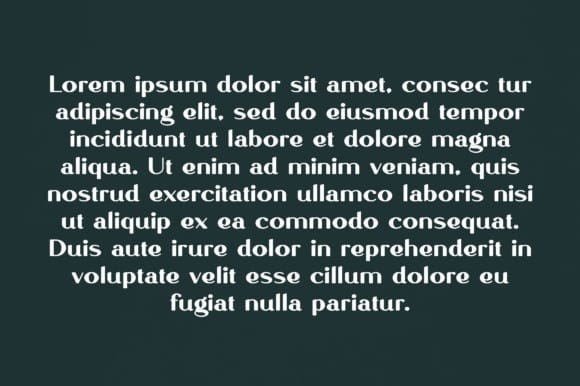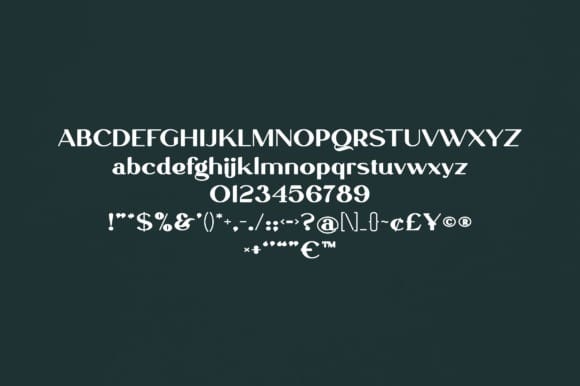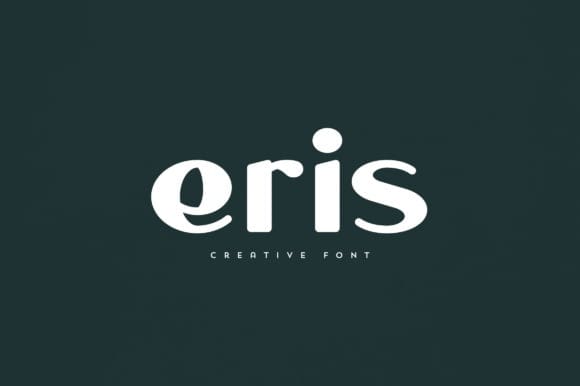
Eris Font
Eris Font is an elegant and versatile font that will make your typography truly unique! It will enchant every logo, branding, headline, or plain text!